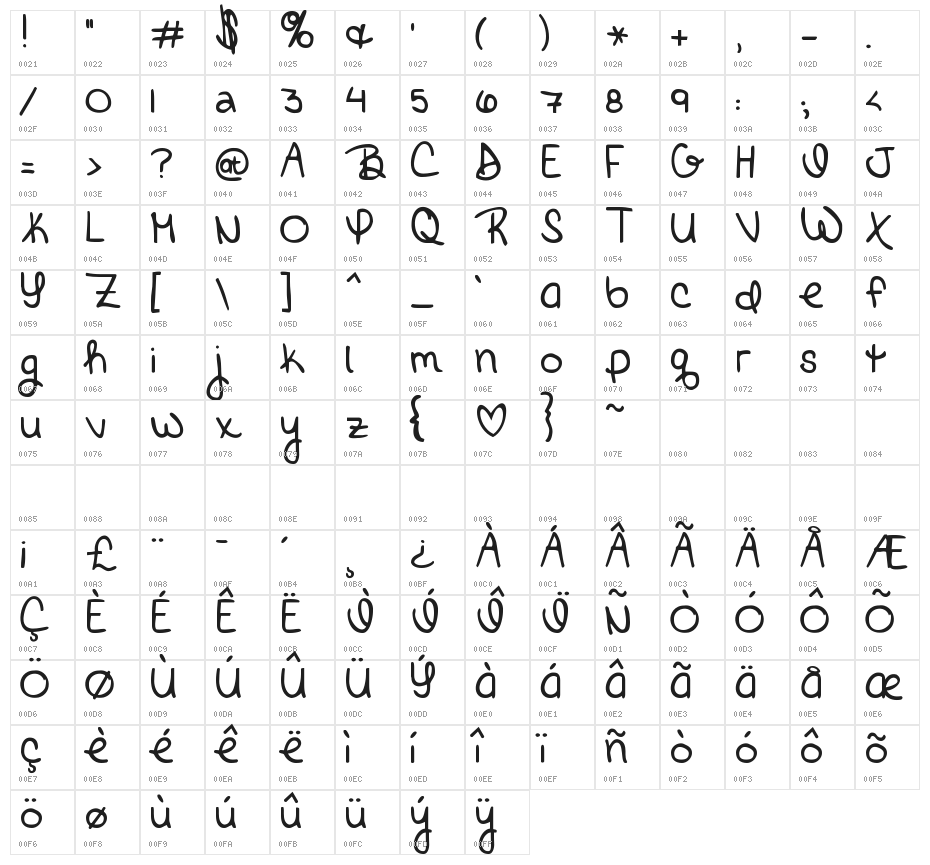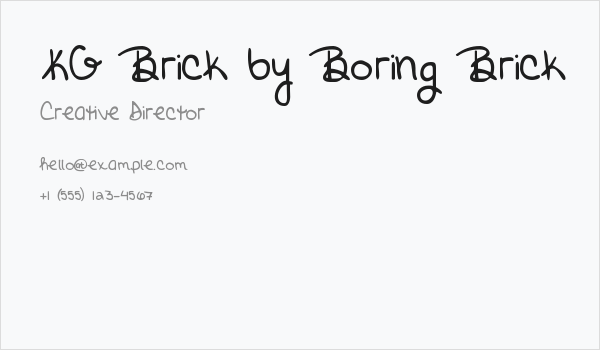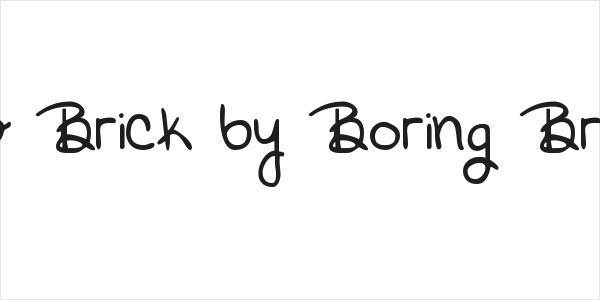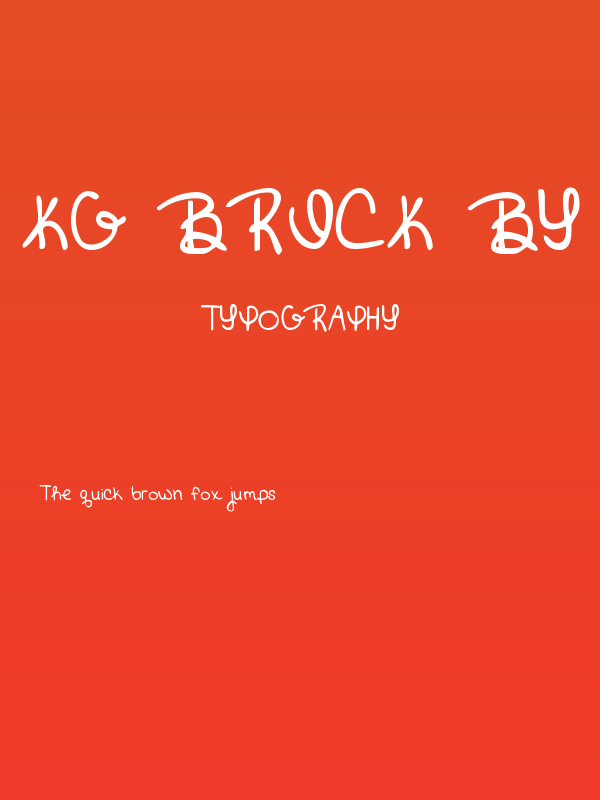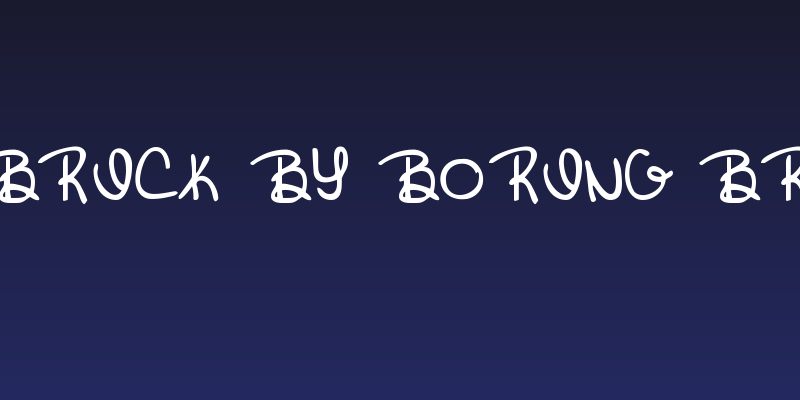
KG Brick by Boring Brick Font
KG Brick by Boring Brick Description
This playful and whimsical font features a handwritten style with a casual and friendly appearance. The characters are slightly irregular, adding a personal touch that mimics natural handwriting. The strokes are smooth and rounded, giving it a soft and approachable feel. The uppercase and lowercase letters maintain a consistent style, with a slight slant that enhances its informal nature. The numbers and special characters are designed to match the overall aesthetic, ensuring a cohesive look across all text elements. This font is ideal for projects that require a touch of personality and creativity.
| Proposed Projects | Ideal for children's books, greeting cards, personal blogs, and creative branding projects. |